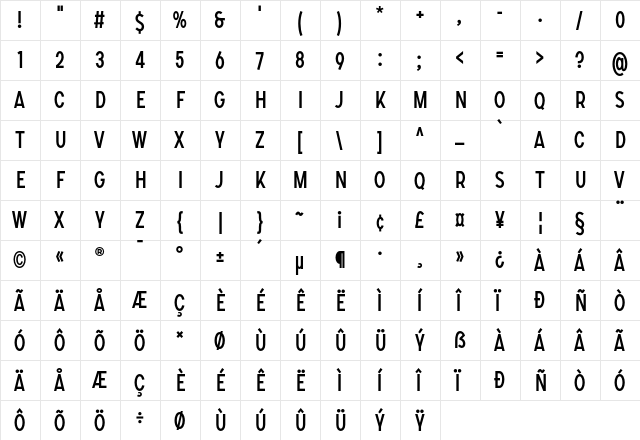
SONGER Condensed Regular
| Foundry | Alexander Pravdin |
| Designer | Alexander Pravdin |
Design Context for SONGER Condensed Typeface
SONGER Condensed offers clean, dependable letterforms without strong stylistic allegiance, making it a practical choice for designers who need flexibility. Its narrow stance lets it pack a punch even in space-constrained designs.